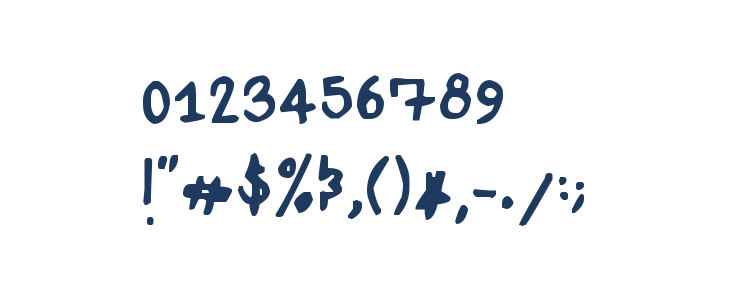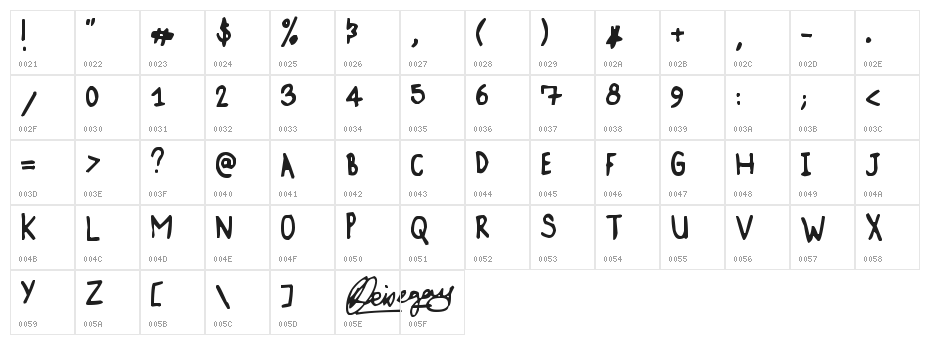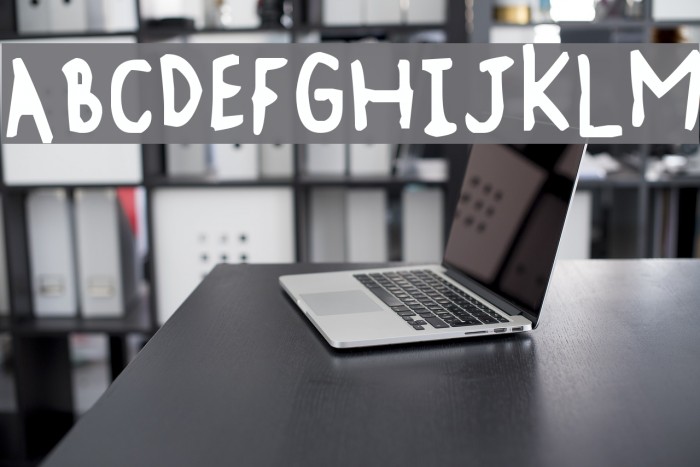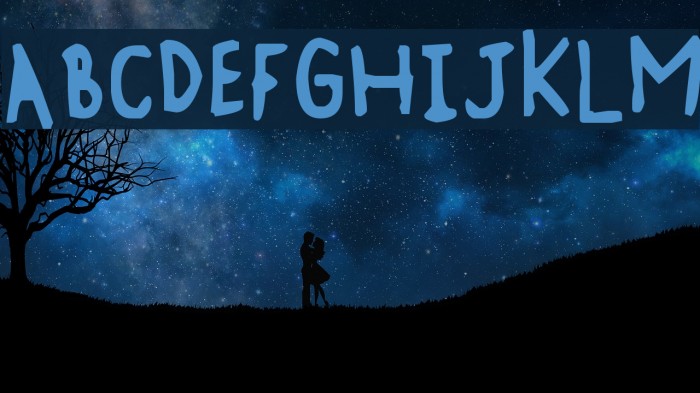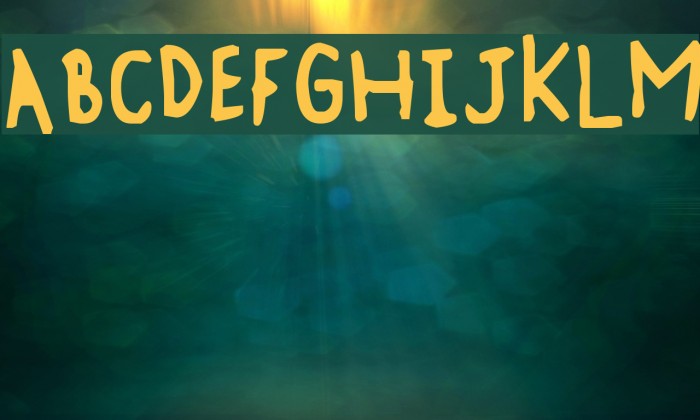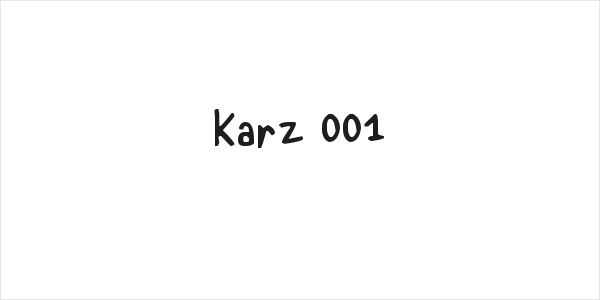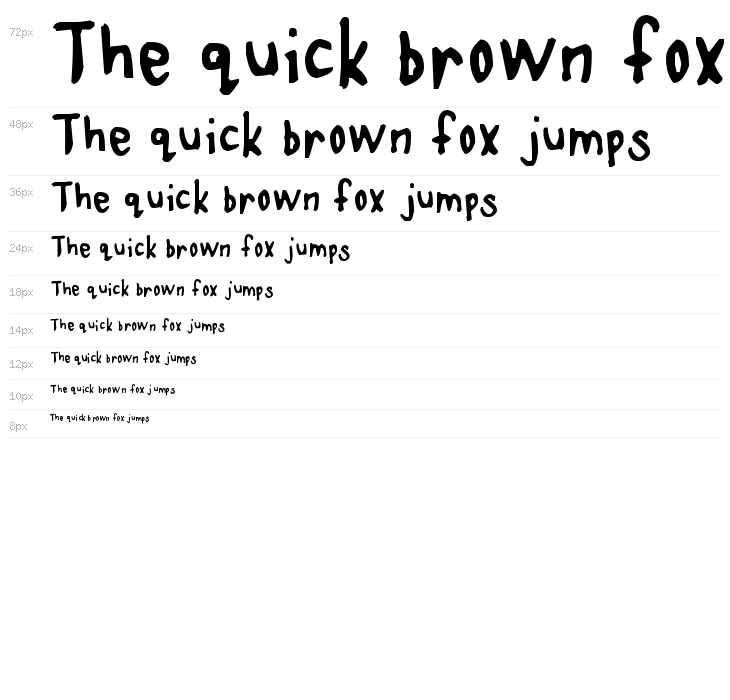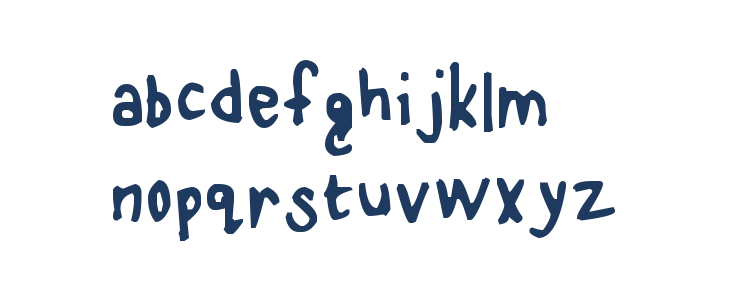
Karz 001 Font
This font exhibits a playful and informal style, characterized by its hand-drawn appearance. The letters have a slightly irregular form, giving them a whimsical and casual look. The uppercase and lowercase letters maintain a consistent style, with rounded edges and varying stroke thicknesses that add to the font's charm. The numbers and special characters follow the same playful aesthetic, making the font suitable for creative and informal projects. The overall design is approachable and friendly, ideal for conveying a sense of fun and creativity.
| Proposed Projects | Ideal for children's books, greeting cards, playful branding, and creative posters. |